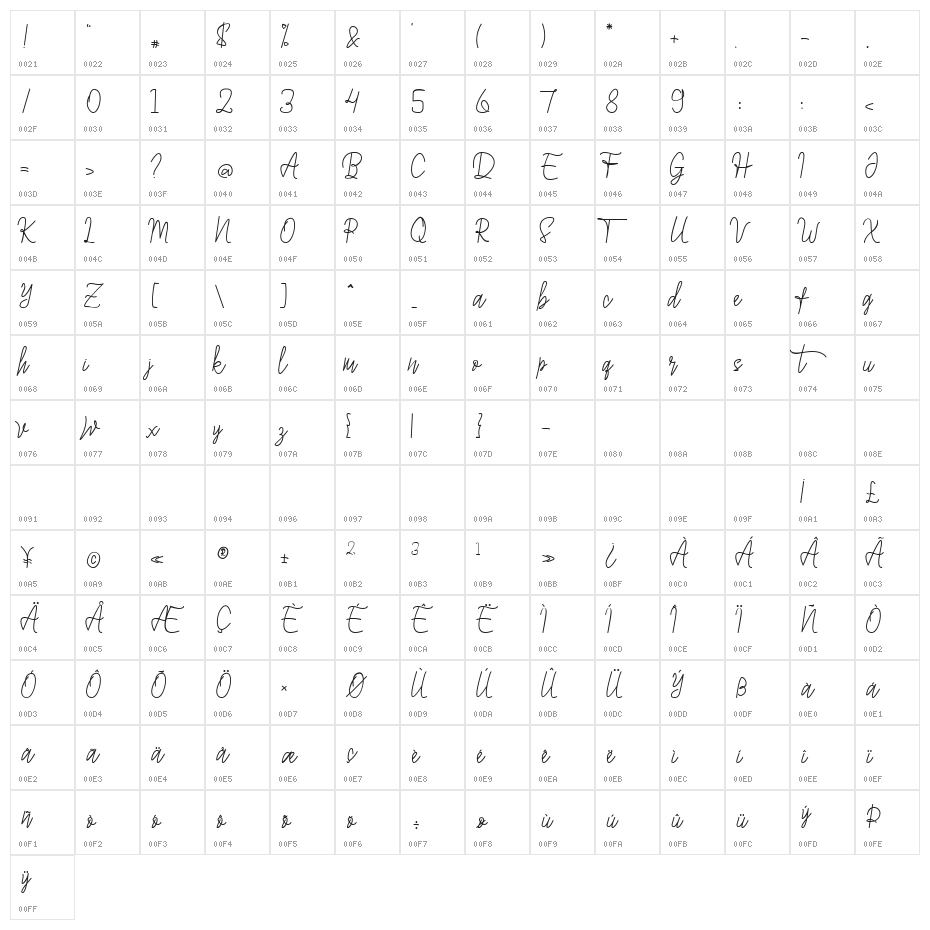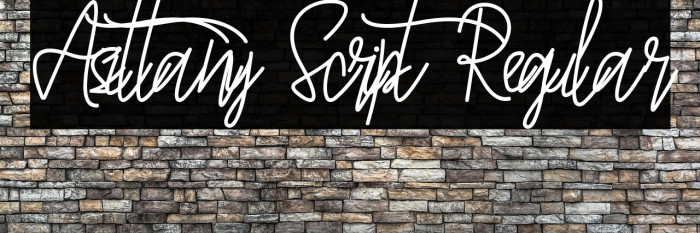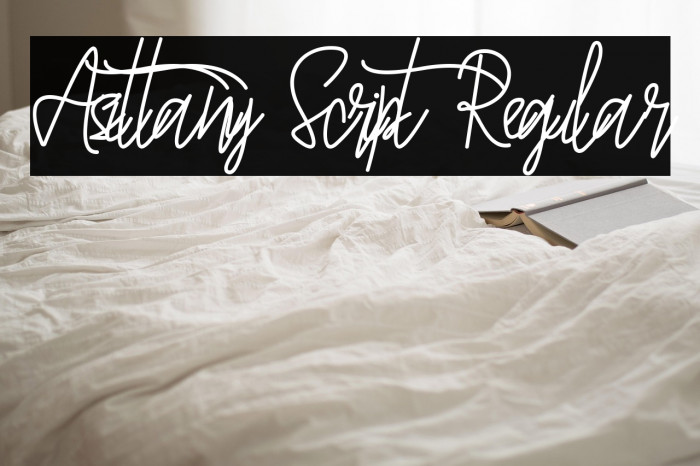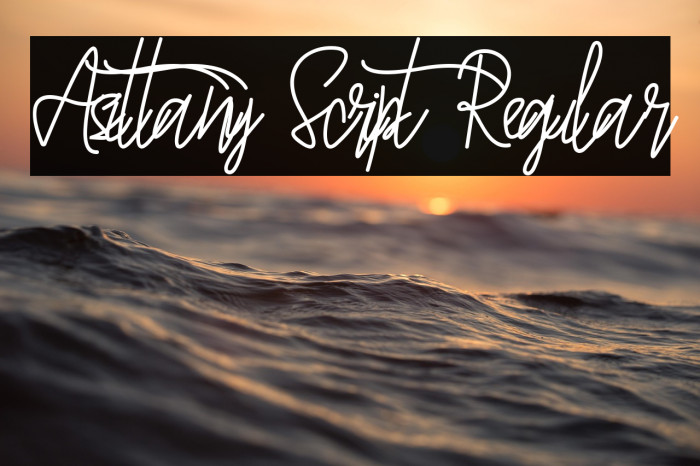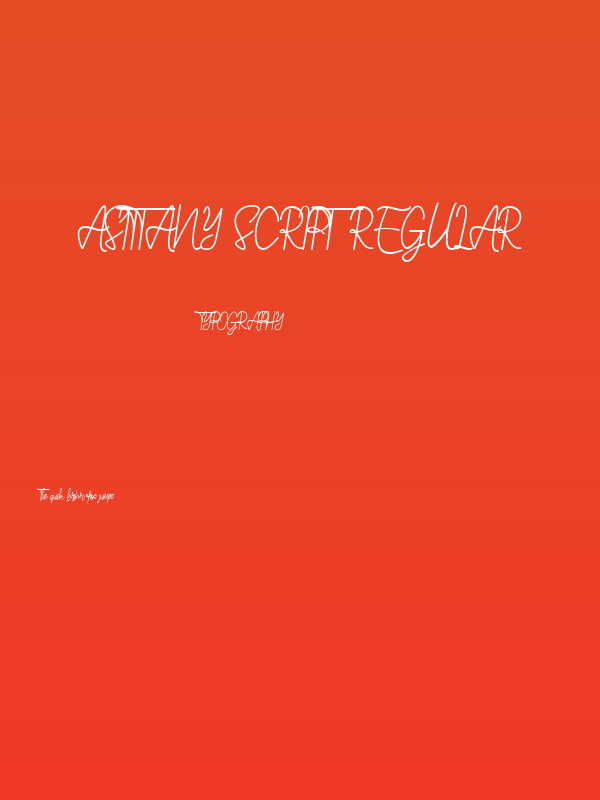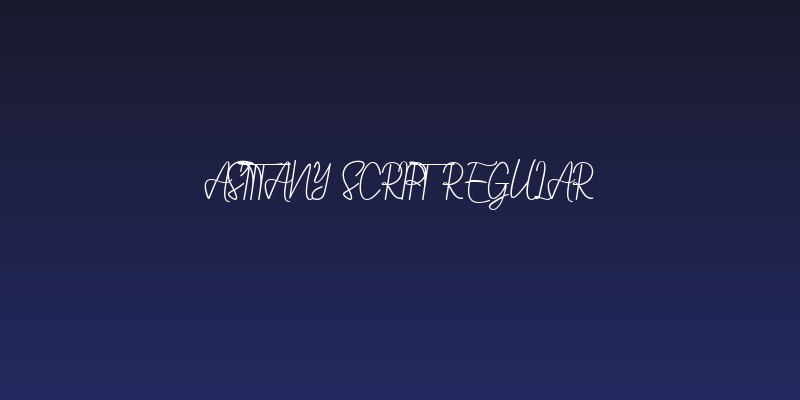
Asittany Script Regular Font
Asittany Script Regular Description
This font is a flowing and elegant script style, characterized by its smooth, continuous strokes that mimic the fluidity of handwriting. The uppercase letters are tall and graceful, with loops and swirls that add a touch of sophistication. The lowercase letters maintain a consistent flow, connecting seamlessly to create a cohesive look. Numbers and special characters are designed with the same attention to detail, ensuring they blend well with the overall aesthetic. The font's delicate lines and curves make it ideal for projects that require a personal and artistic touch.
| Overall Style | Elegant |
| Use Case | Logos, Invitations, Artistic projects |
| Proposed Projects | Ideal for wedding invitations, greeting cards, personal branding, and artistic projects. |